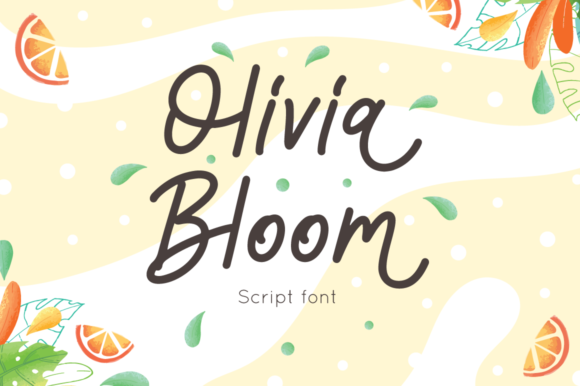
Embark on a Typographic Adventure with Olivia Bloom, the Script Font That Will Ignite Your Creative Passion!
Olivia Bloom, a captivating script font, invites you to express your creativity like never before. This exquisite font family, lovingly crafted by attypestudio, exudes elegance and class, leaving an unforgettable mark on your designs. Immerse yourself in a world of beauty and sophistication as you explore the endless possibilities that await.
With its graceful curves and delicate flourishes, Olivia Bloom adds a touch of allure to every project. Whether you're designing wedding invitations, branding materials, or social media graphics, this font will elevate your work to new heights. Its versatility knows no bounds, seamlessly adapting to a variety of design styles, from classic and timeless to modern and trendy.
But what truly sets Olivia Bloom apart is its enchanting ability to capture the essence of handwritten script. Each letter flows effortlessly into the next, creating a captivating visual rhythm that draws the eye and ignites the imagination. It's as if each word is a work of art, carefully crafted to convey a story, an emotion, a connection.
So, step into the world of Olivia Bloom and let your creativity flourish. Whether you're a seasoned designer or just starting out, this font will unlock your full potential and help you create designs that leave a lasting impression. Experience the beauty of script typography and elevate your projects to new heights with Olivia Bloom, the font that speaks to your soul.